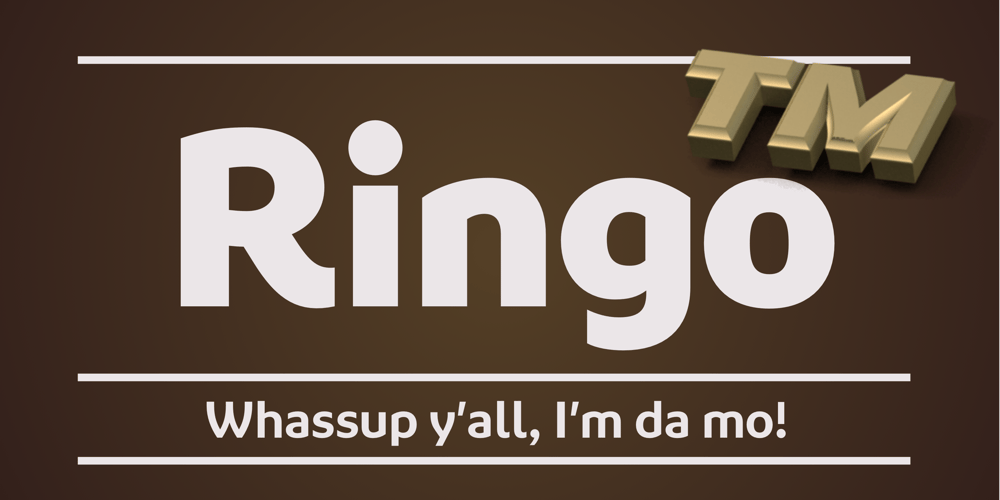
Ringo
Ringo font
Ringo Font Family was designed by Łukasz Dziedzic and published by typoland. Ringo contains 4 styles and family package options. Whassup y’all! Me and my bros got this li’l gang together: we is Ringo, and we got da bling, yo! We is da typeface family for ya all! We got some real sweet stuff for ya, some nice characters. We got all ’em OpenType features like fractions and proportional figgers, we even got da cubic root, man! And check out da question mark, man, is real sweet. And the ampersand, yeah! I luv ’em ampersands. Now my brothers over here got some light action for ya, and they got some real bold action for ya. We got some nice foxy curves goin’ on, some nice tension, and some nice relaxation. My bro Light over here is kind of like the subtle guy, ya know. He’s in for the female fans, ya know. Heh! Hell, yeah! And man, we speak like 84 languages: we speak the German, and the French, and the Spanish, and we speak the Polish, and the Czech, and the Hungarian, and we even speak Shambala and Swahili and Rundi, and we got some Esperanto thing as well for ya. And check out my bro Black right over here, he’s like the action superhero, man! He’s got impact, man! Yeah yeah, but you know, my bros Regular and Bold are the real deal. Them is like da word of da street, man! Like da word of you, and you. And we got a message for y’all: life is hard, life is real, but you should work your mojo, be smooth, be nice, chill. We got all them kerning pairs, and all them weights, and we got ’em alternate letters. So check us out, yo!